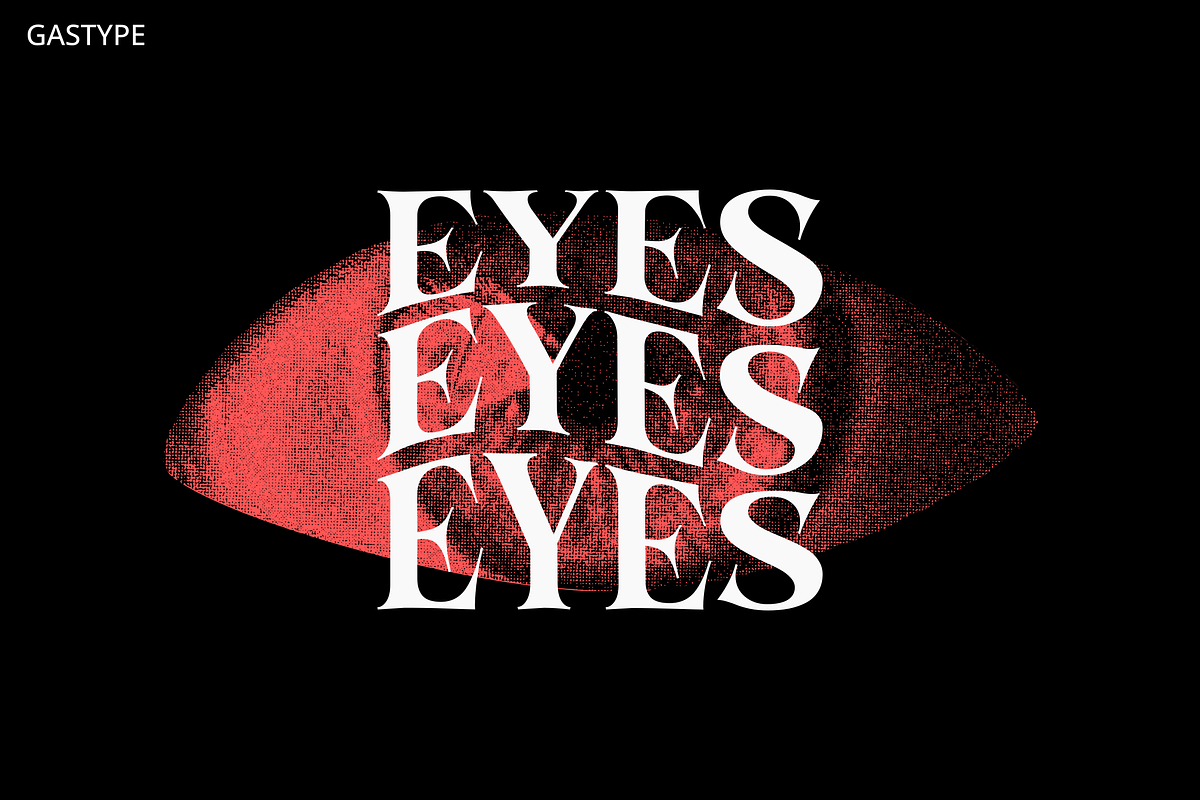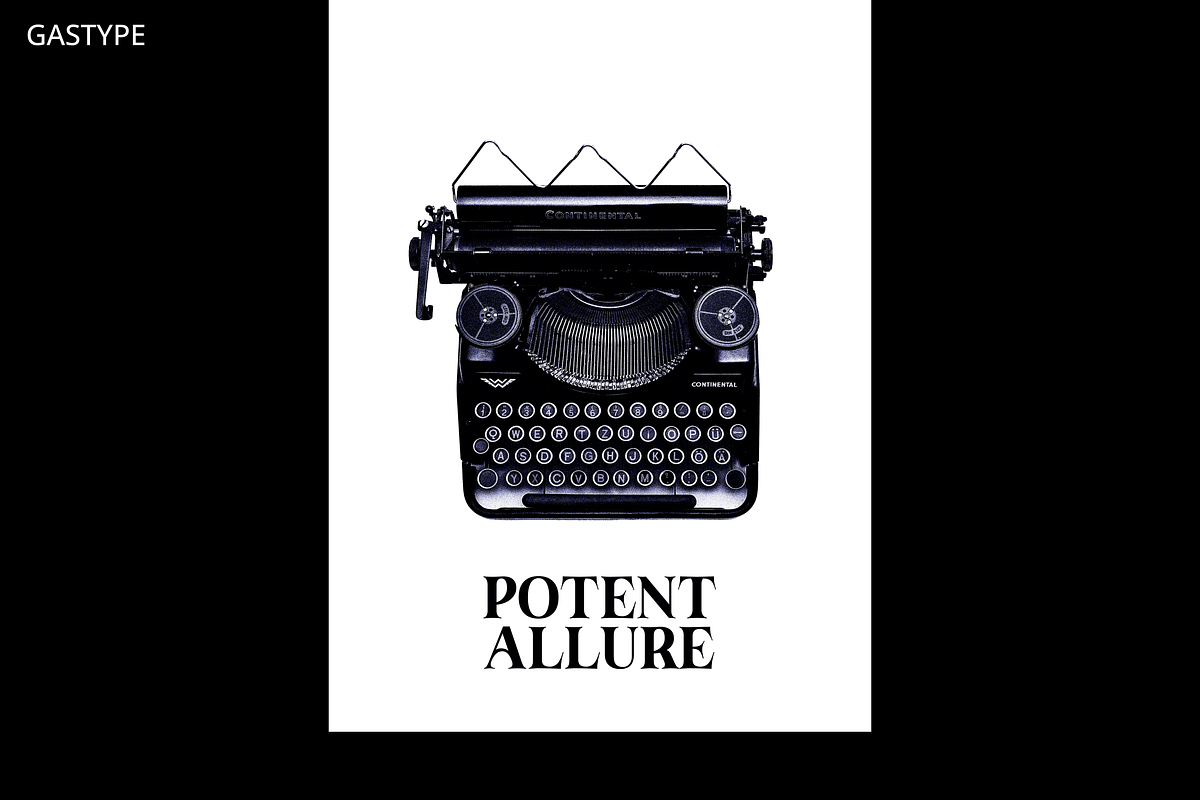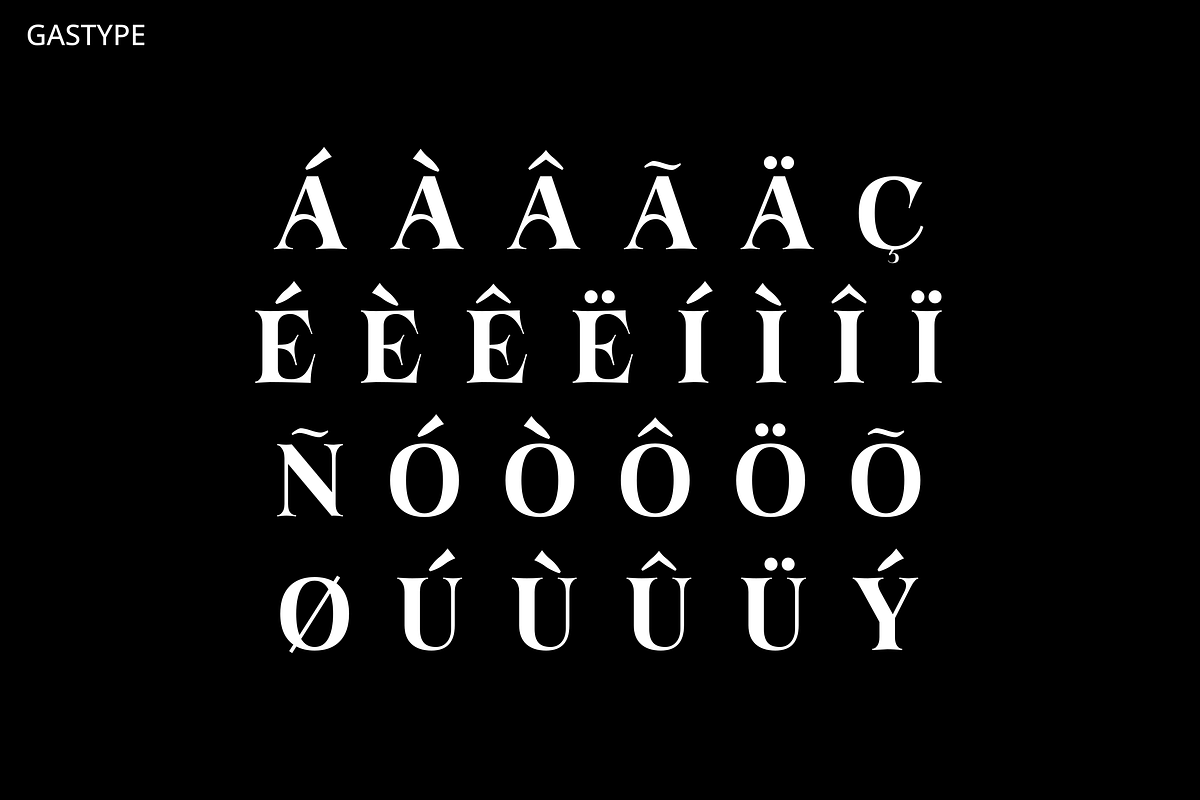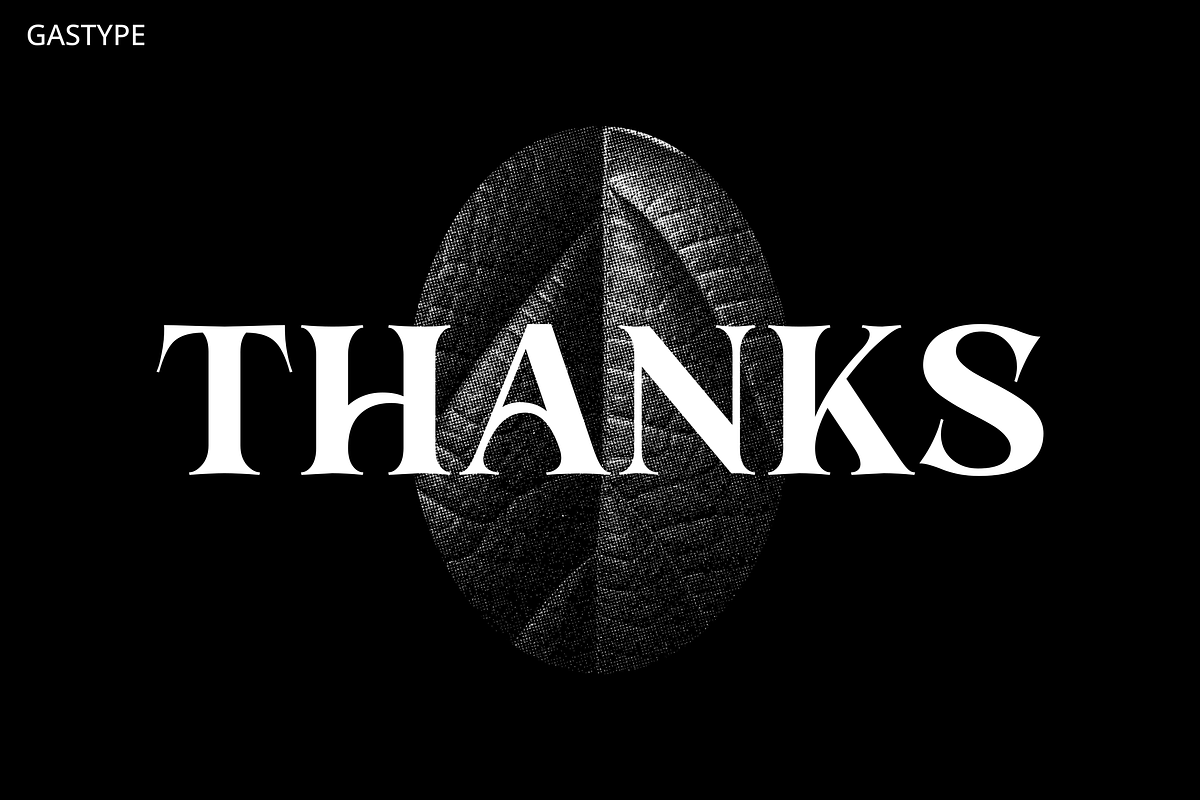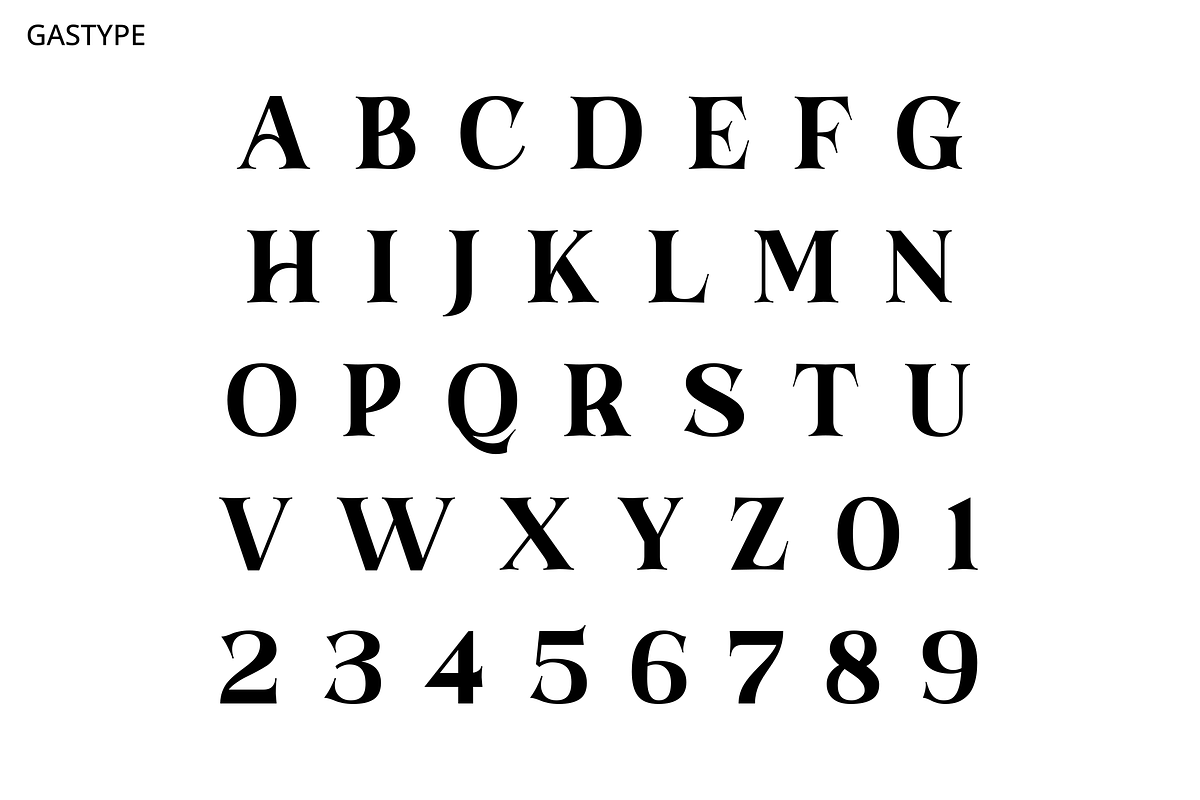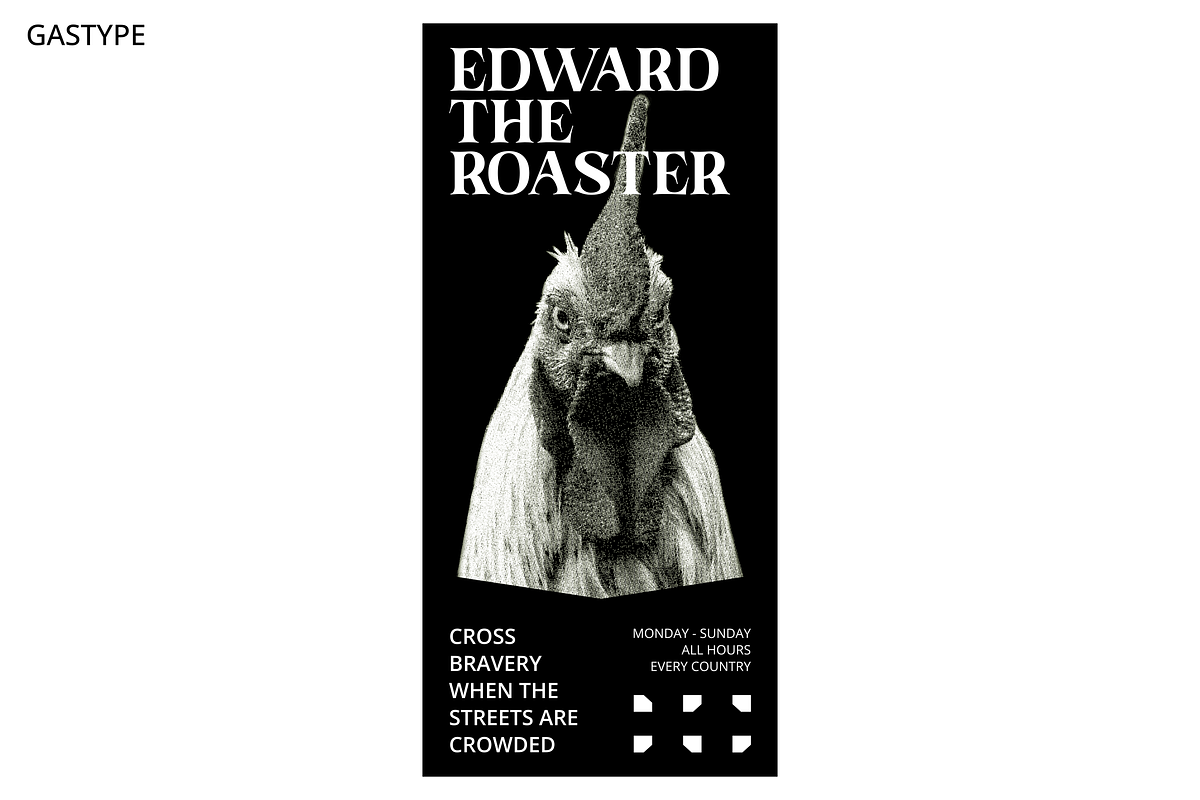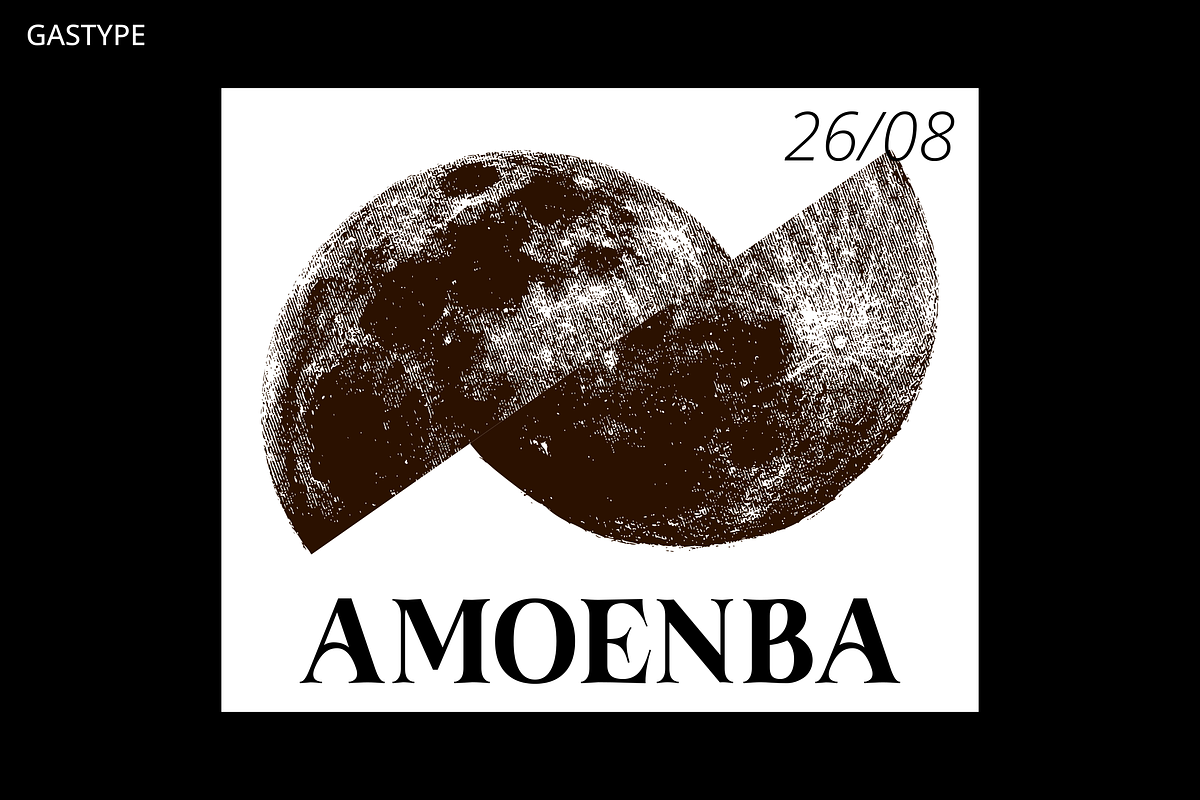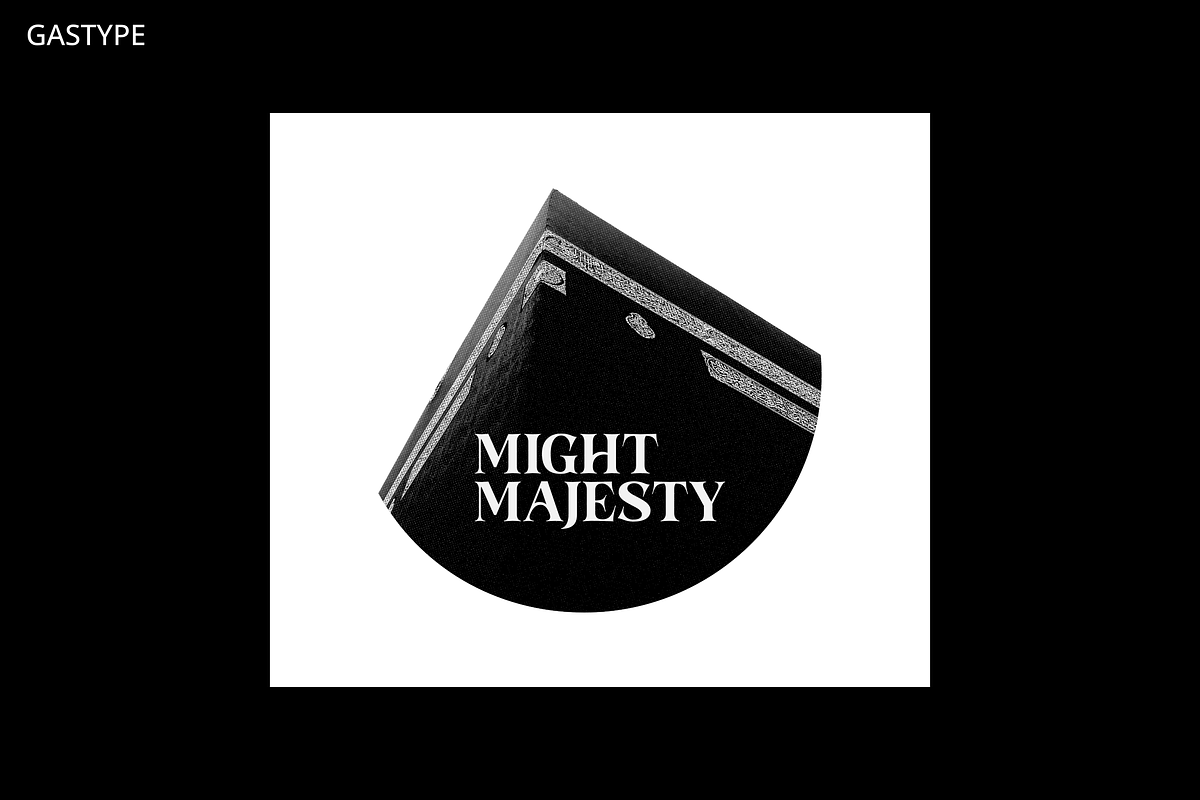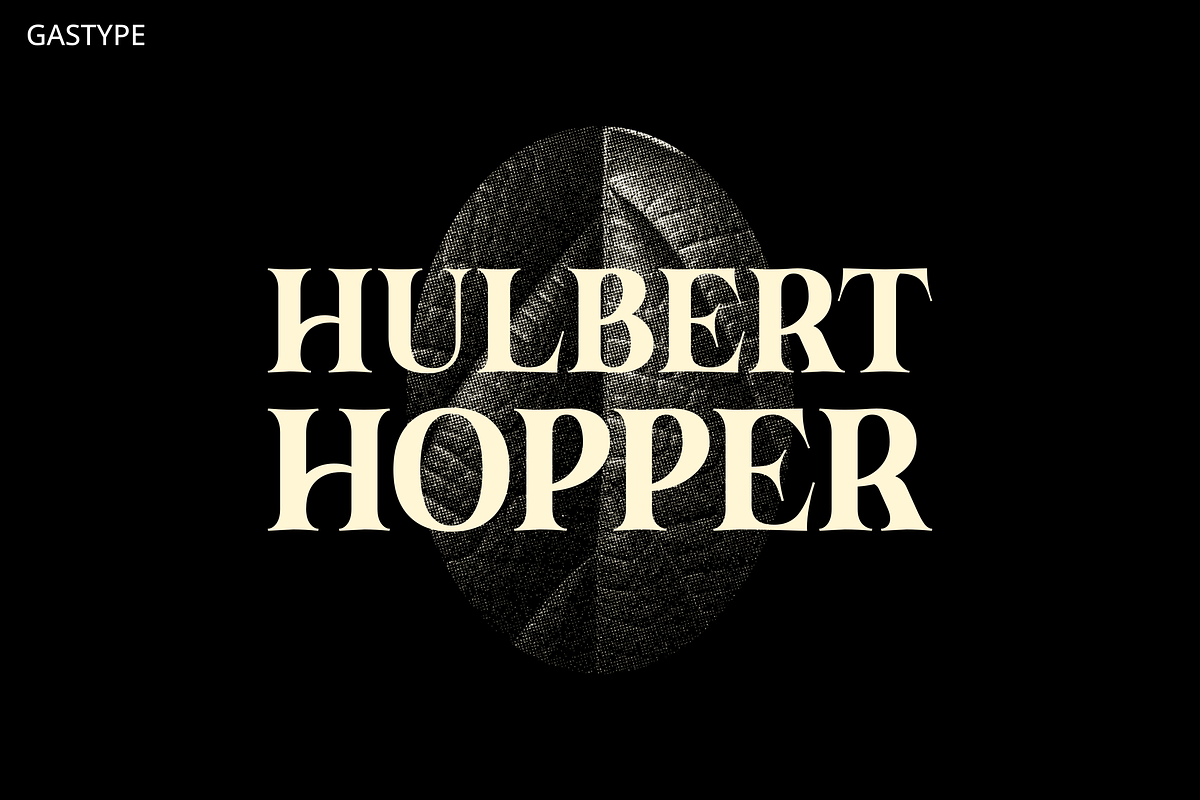
Hulbert Hopper Display
Hulbert Hopper Display Font
Introducing Hulbert Hopper Display, a stunning and versatile serif display font designed for those who love the retro style. This font features a full set of uppercase letters, multilingual symbols, numerals, and punctuation, making it perfect for a wide range of design projects.
The unique and distinctive design of "Hulbert Hopper Display" is perfect for creating eye-catching headlines, titles, and logos. Whether you're working on a vintage-inspired poster, a classic book cover, or a retro-style website design, this font is sure to add a touch of elegance and sophistication to your project.
With its clean lines, elegant curves, and classic serif style, Hulbert Hopper Display is easy to read and sure to grab the attention of your audience. Its timeless design ensures that it will remain a valuable addition to your font collection for years to come.
So, if you're looking for a versatile and stylish serif display font, look no further than Hulbert Hopper Display. Whether you're a professional designer or a hobbyist, this font is sure to add a touch of vintage charm to your next project.